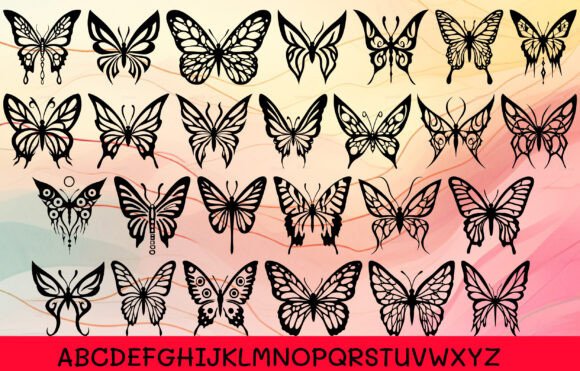
The Joy of Typography: Bringing Whimsy to Your Designs
Have you ever been stuck in a creative rut, searching for the perfect font to elevate your project? Maybe you’re crafting a wedding invitation, designing a scrapbook page, or building a website. Whatever the project, we’ve all been there – desperate for a spark of inspiration to set our designs apart. And that’s where the enchanting Butterfly Happy Font comes in.
This delightful font features 26 unique butterfly-inspired designs, each corresponding to a letter from A to Z. By incorporating these whimsical characters into your designs, you can add a touch of charm and joy that will leave a lasting impression on your audience. Whether you’re a seasoned designer or a crafting enthusiast, the Butterfly Happy Font is a valuable addition to your creative toolkit.
Key Features of “Butterfly Happy Font”
- Unique Characteristics: Whimsical, playful, and vibrant design with intricate details and ornaments
- Font Style: Casual, Script, and Display font styles available
Designer Review: Butterfly Happy Font
I’ve had the chance to work with the Butterfly Happy Font, and I must say it’s a unique addition to any design project. ✨ The playful and whimsical feel of this font is perfect for creating eye-catching headings and titles that evoke a sense of joy and wonder.
One of the standout features of this font is its versatility. ✨ It works well in both digital and print design applications, making it a great choice for a wide range of projects. Additionally, the font’s large character set and language support make it a solid option for international projects.
However, I do have some reservations about this font. ⚠️ The overall aesthetic can come across as a bit too childish or cartoonish for some designs, which may not be suitable for all projects. Additionally, the font’s bold weight can be a bit too heavy-handed at times, overpowering the surrounding text.
Here are some specific pros and cons to consider:
- ✨ Unique and playful aesthetic
- ✨ Versatile and suitable for a wide range of projects
- ✨ Large character set and language support
- ⚠️ Can come across as too childish or cartoonish
- ⚠️ Bold weight can be overpowering at times
Overall, I think the Butterfly Happy Font is a great choice for designers looking to add a bit of whimsy and personality to their projects. However, it’s essential to use it judiciously and in the right context to avoid overwhelming the design.
For the best results, use the Butterfly Happy Font in conjunction with bright, pastel colors to create a whimsical and playful atmosphere.
The Butterfly Happy Font is ideal for creating eye-catching titles, headings, and labels for various projects, including:
– Children’s book illustrations
– Party invitations
– Branding materials